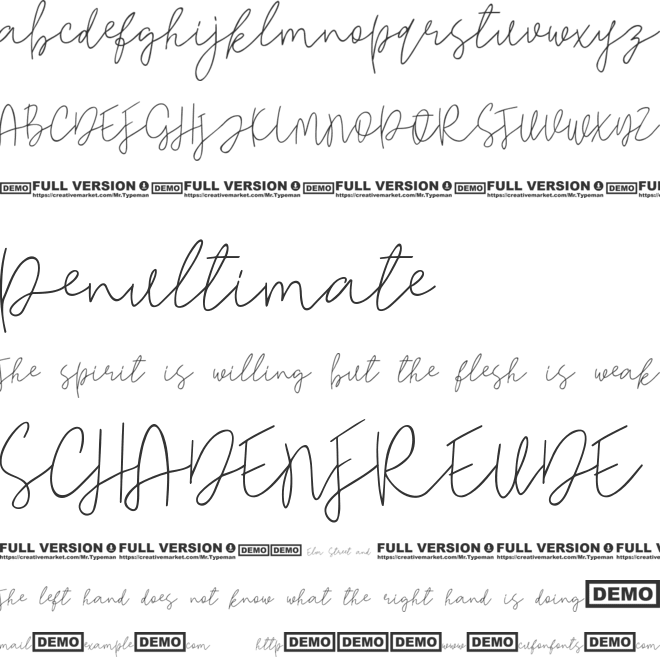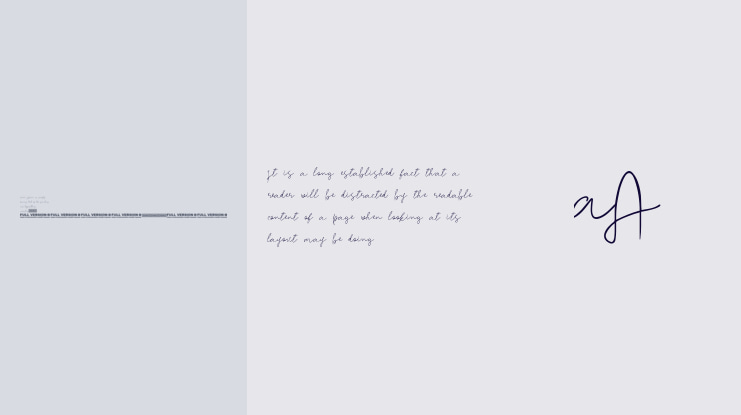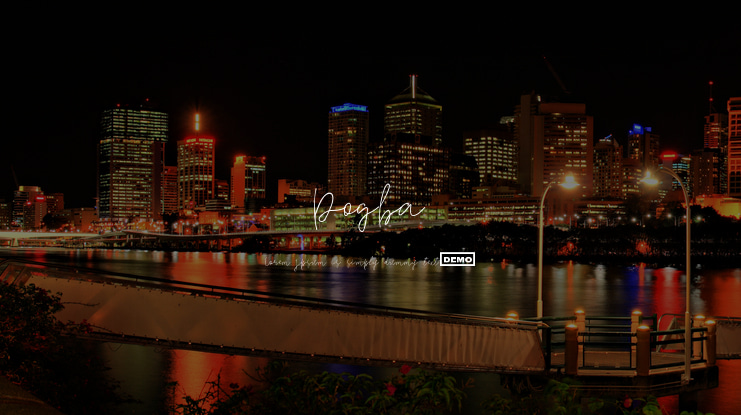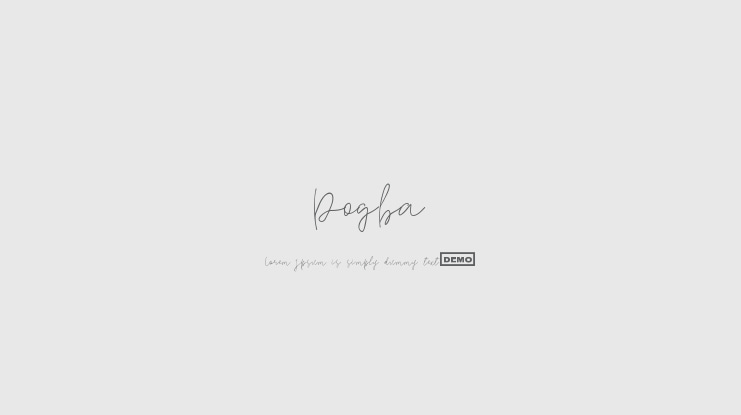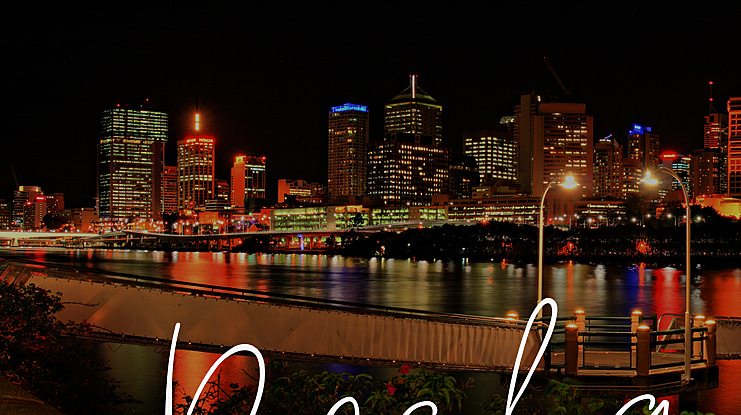
Pogba Font
Pogba is a stylish calligraphy font with an amazing and natural style.
Pogba is perfect for branding & logo projects, also suitable for packaging, wedding invites and cards and so on.
Full version of Pogba comes with uppercase, lowercase, standard punctuation and special letters for most of the European languages.